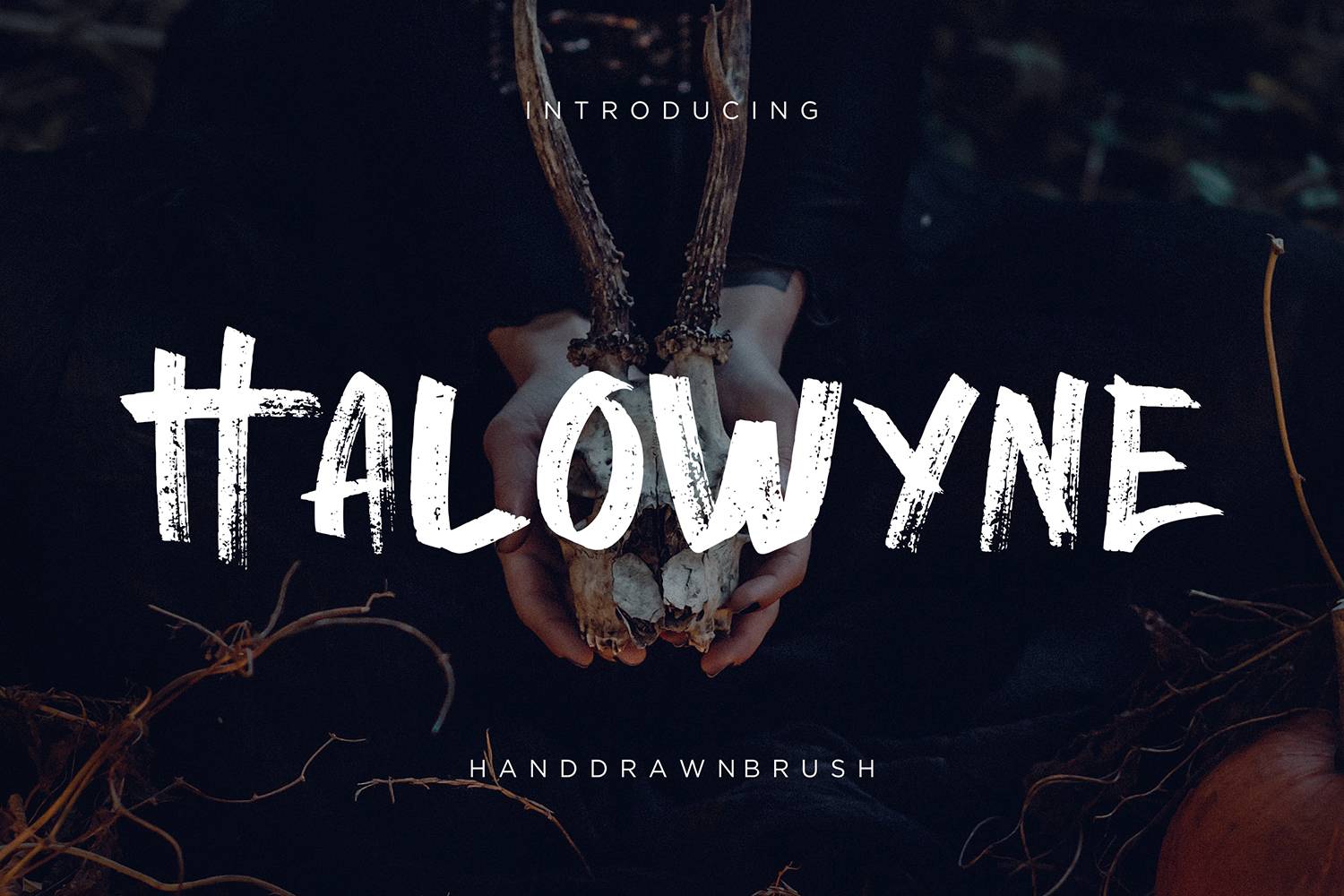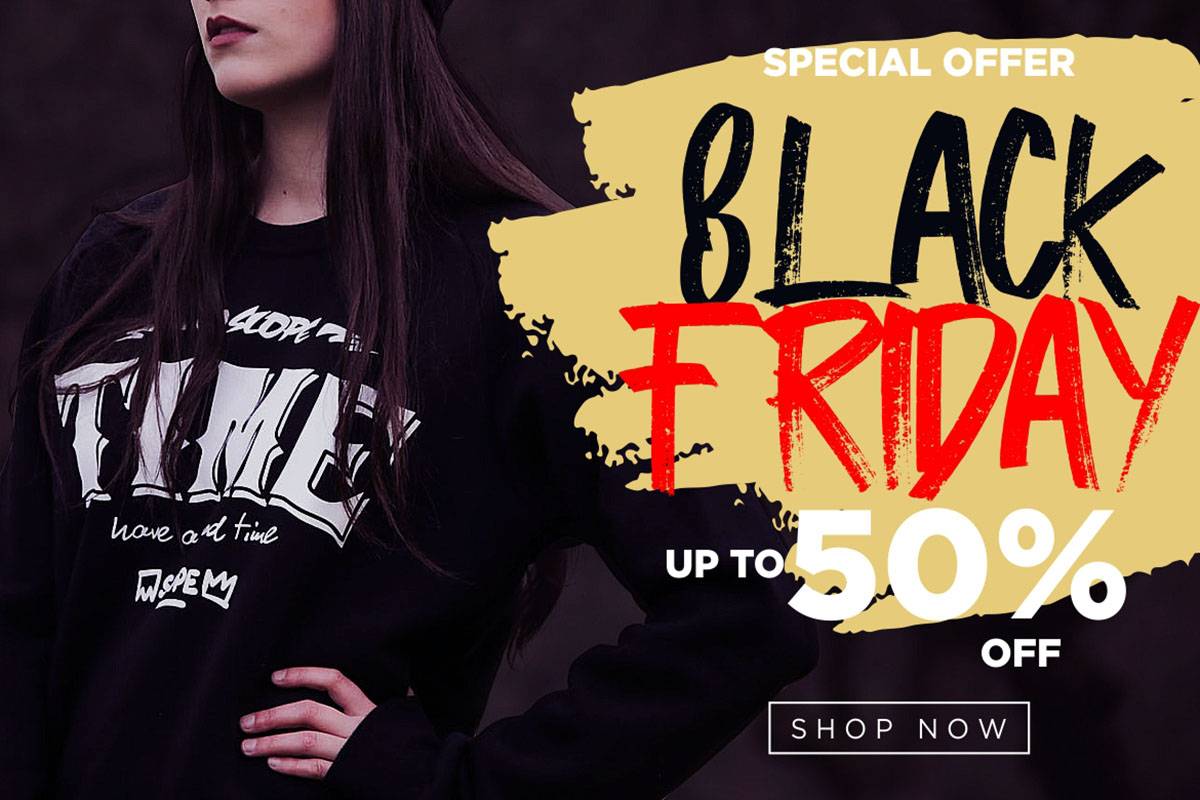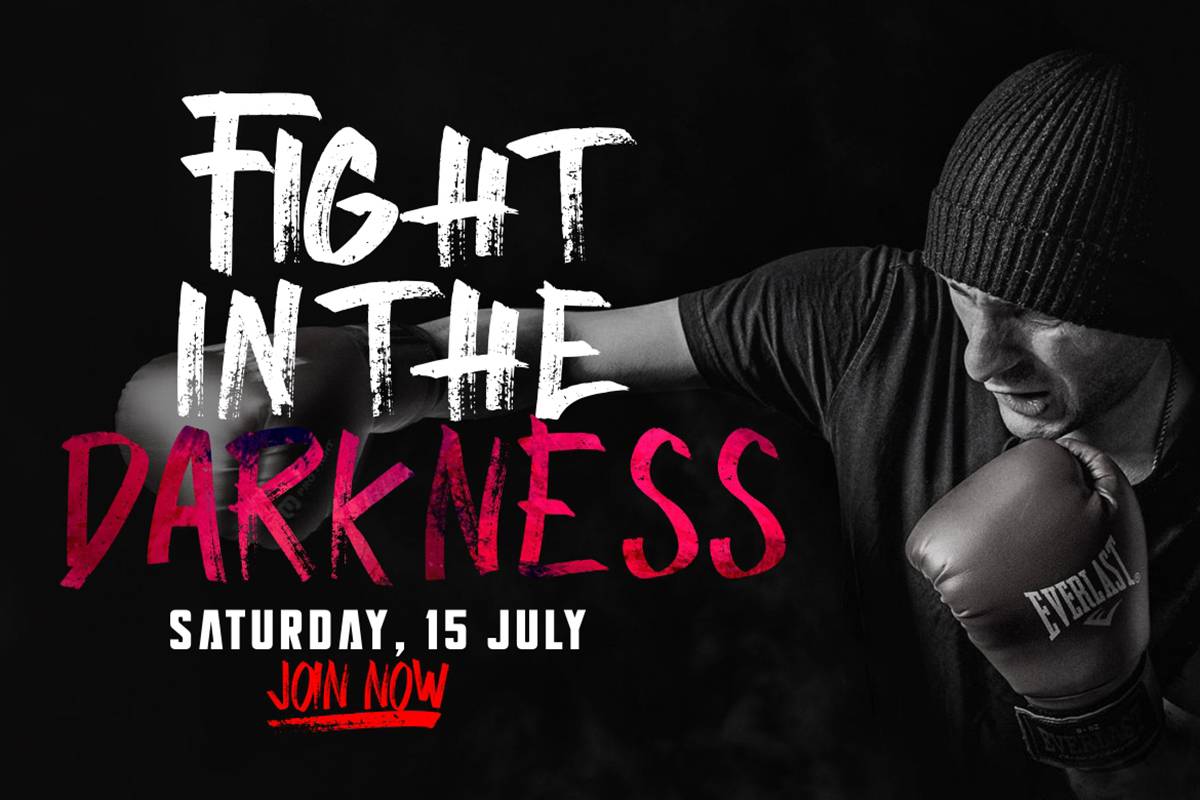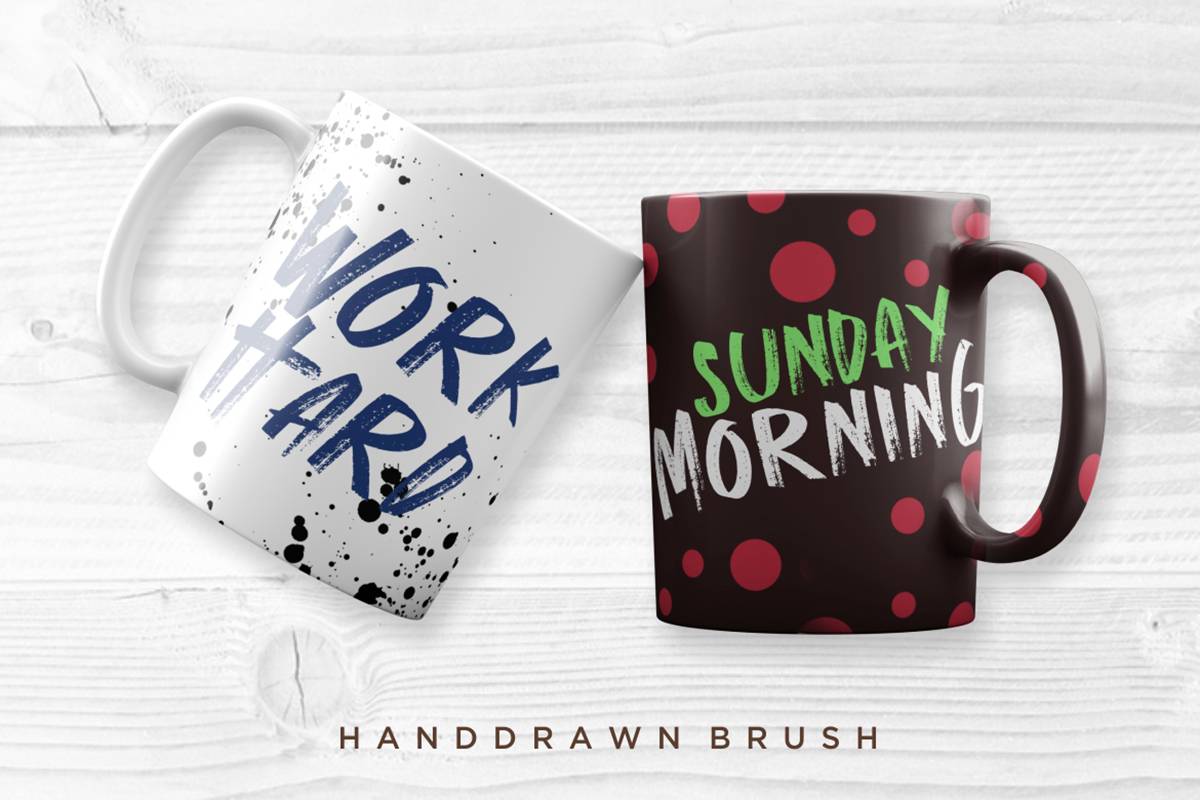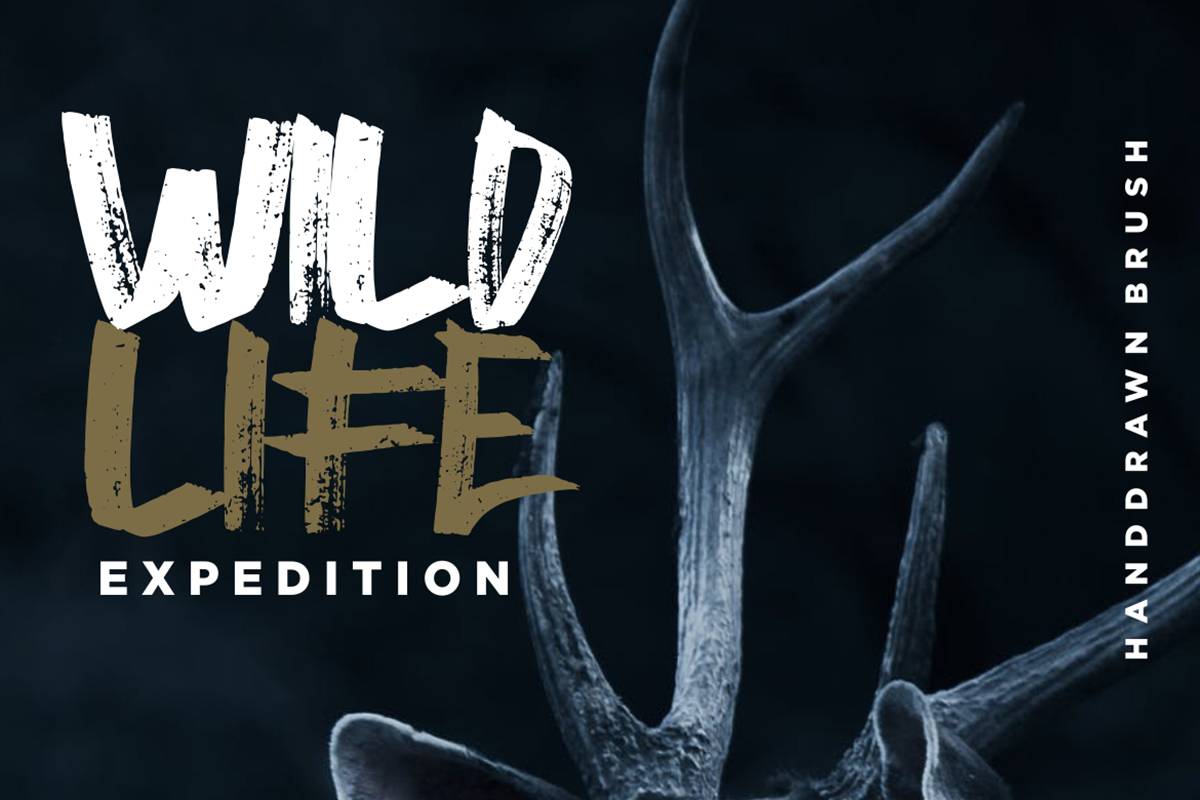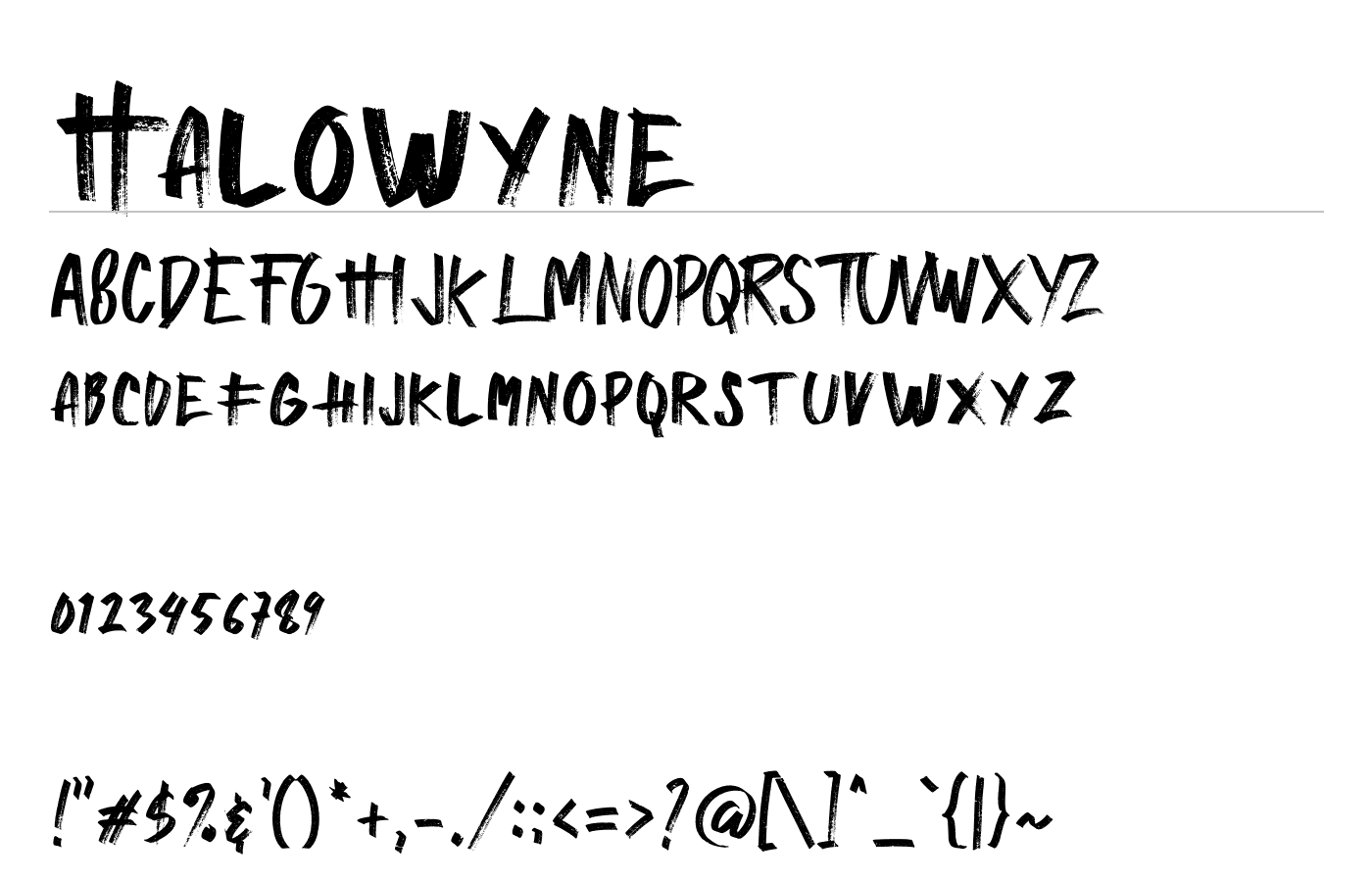
Halowyne is a bold, hand-drawn sans serif font with a rough, textured brushstroke style that adds a sense of energy and rawness. Its irregular shapes and uneven edges convey a casual, edgy, and rebellious personality, making it ideal for designs that want to evoke creativity and attitude. This font works especially well for posters, branding, and headlines where a strong, expressive impact is needed.
Halowyne Font
About Halowyne Font